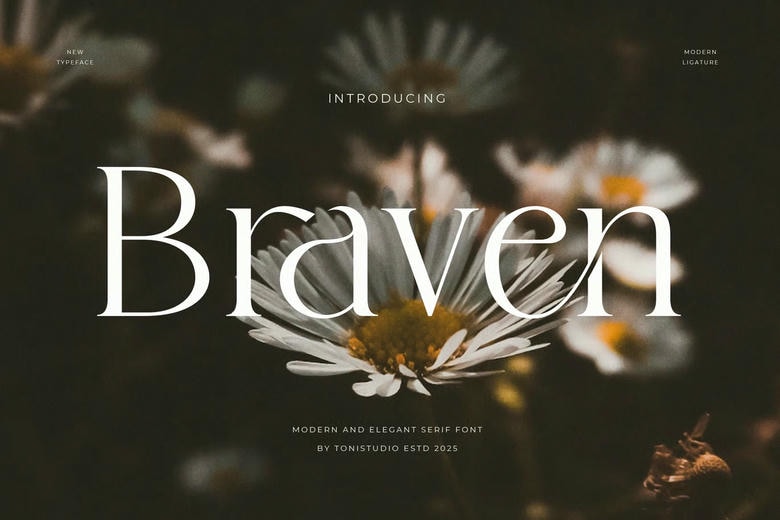
Braven Font
Braven Font is a bold serif font bearing a powerful character, clean stylishness and modernity. Braven is ideal to produce high-impact graphics in branding, editorial headlining, logos and packaging design. Braven has authoritative serifs and clear details that mix the traditional legacy with a new contemporary brushedness and will match masculine, professional or quality lifestyle work. Brilliant in Branding & Logos, Editorial Layouts & Magazines, Product Packaging (Wine, Coffee, Leather Goods, etc.),Web & Social Media Graphics, Masculine Fashion and lifestyle Brands
Braven Serif Font